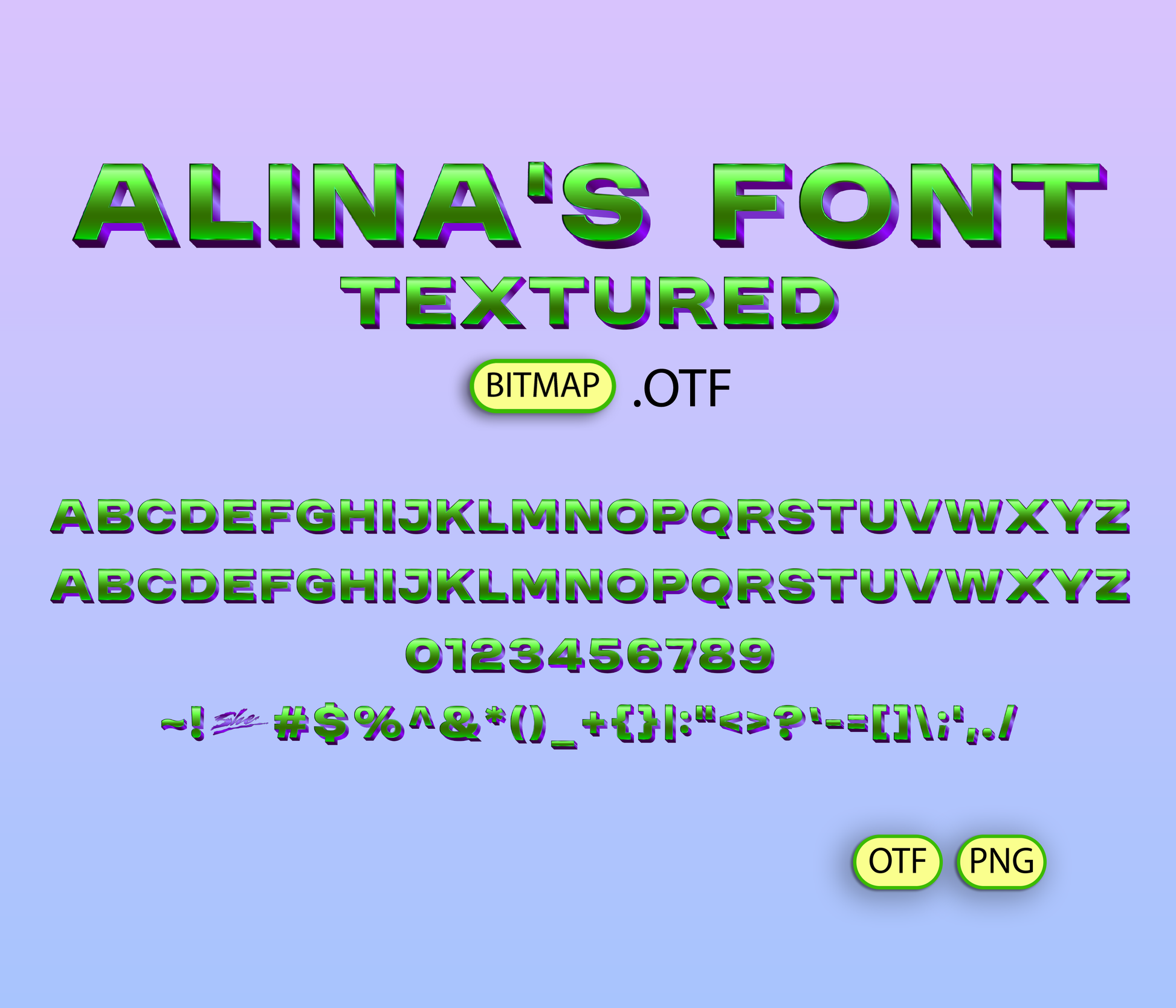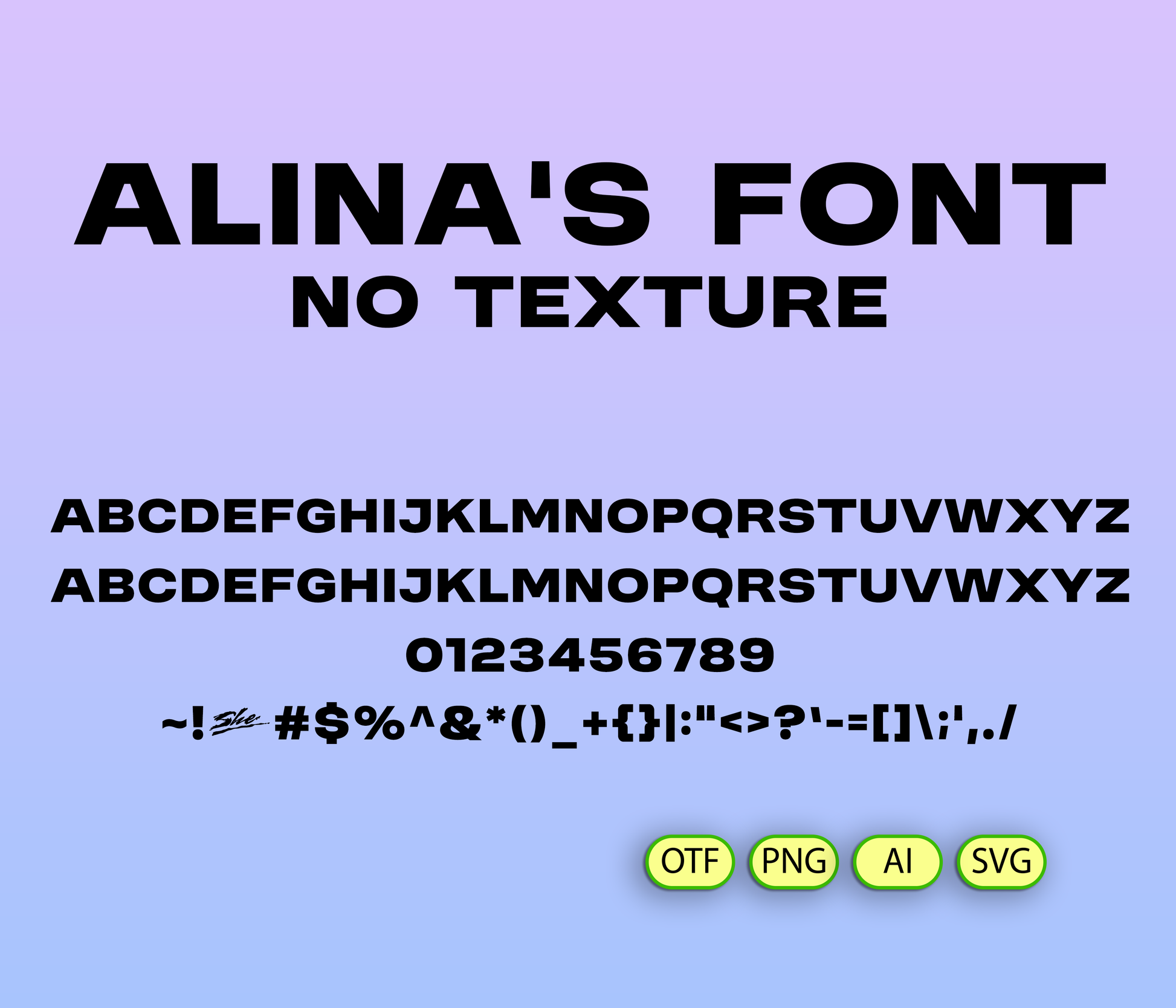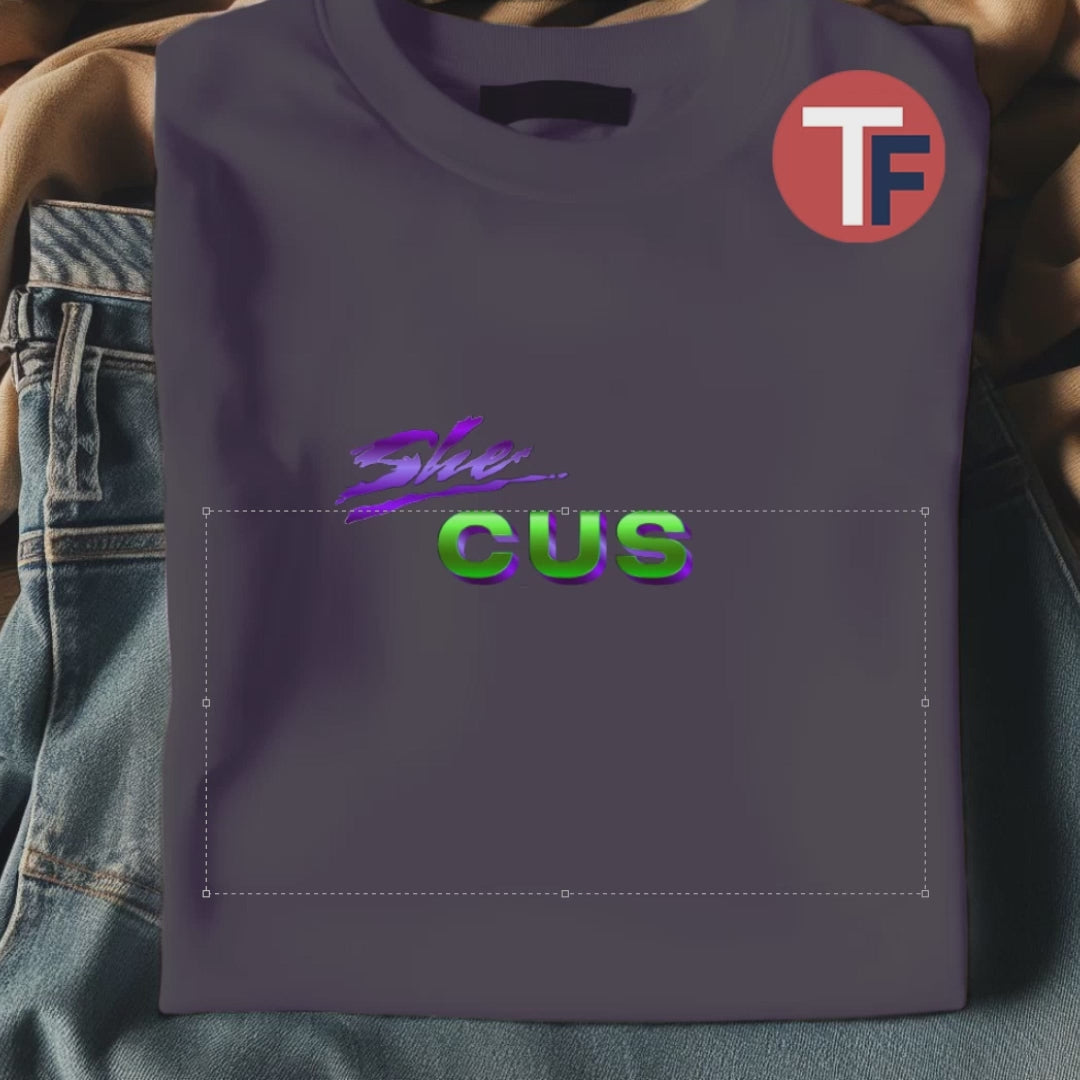
Heroic Strength Font Textured
Empower Your Designs with the Heroic Strength Font
Channel the strength, intelligence, and charm of a powerful heroine with our specially designed font. Perfect for fans, event organizers, and designers looking to capture the dynamic and heroic essence of an iconic character, this font brings the fierce and formidable spirit to your projects. Whether you're creating event invitations, designing themed merchandise, or crafting digital content, our Heroic Strength font ensures your projects resonate with a bold and empowering presence.
Our Heroic Strength-inspired font features bold, powerful lines and elegant, modern characters that reflect the dual nature of strength and sophistication. This versatile font is ideal for a variety of applications:
1. Event Invitations: Perfect for engaging invites for superhero parties, comic conventions, or themed events.
2. Merchandise Design: Ideal for designing t-shirts, posters, and accessories that capture the essence of a powerful heroine.
3. Digital Media: Enhance websites, blogs, and social media content with eye-catching headers and graphics.
4. Educational Materials: Use in presentations, worksheets, and educational content focused on superheroes, law, or storytelling.
5. Personal Projects: Add a touch of empowerment to scrapbooking, DIY crafts, or home decor inspired by heroic adventures.
Our Heroic Strength font not only pays tribute to an iconic character but also empowers you to infuse your designs with a dynamic and powerful essence. Whether crafting promotional materials, unique merchandise, or personal projects, this font allows you to communicate with the strength and elegance that define a true heroine. Ready to bring a powerful impact to your creative projects? This font is your key to unlocking a world of empowering and impactful design.